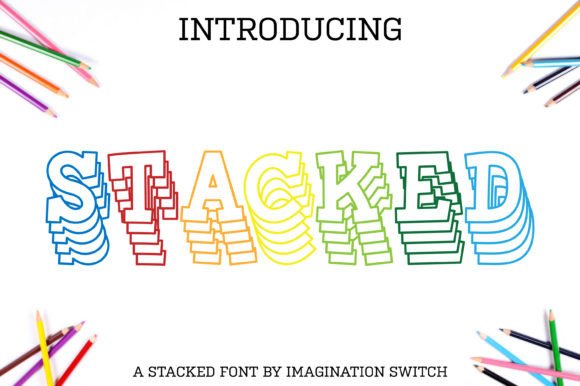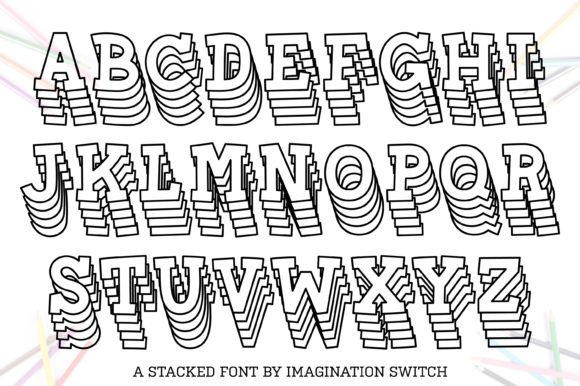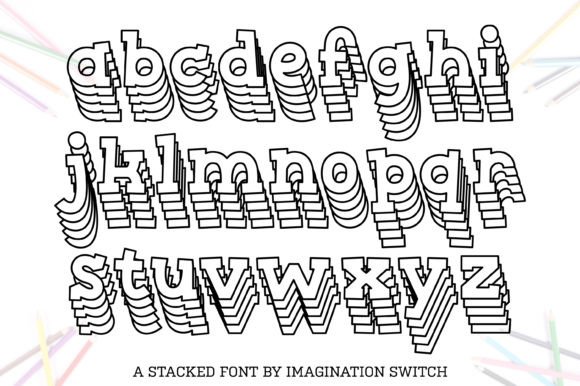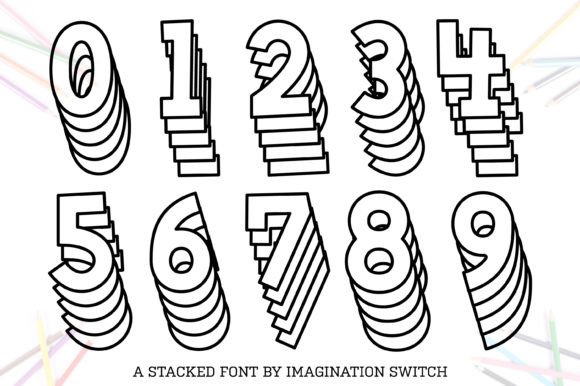
Stacked Font
Stacked is a display stacked font. With an elegant stacked style, each letter appears dimensional and captivating. This font is suitable for various purposes and moods.